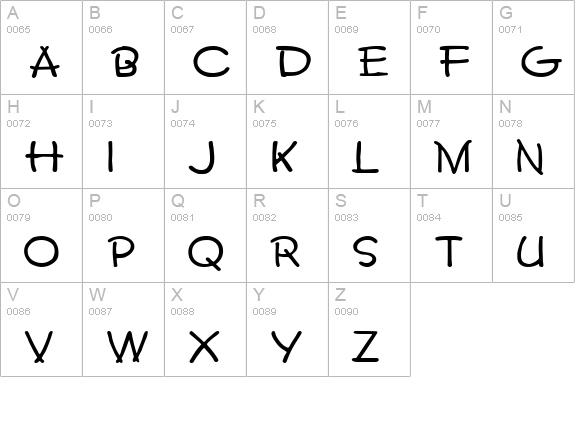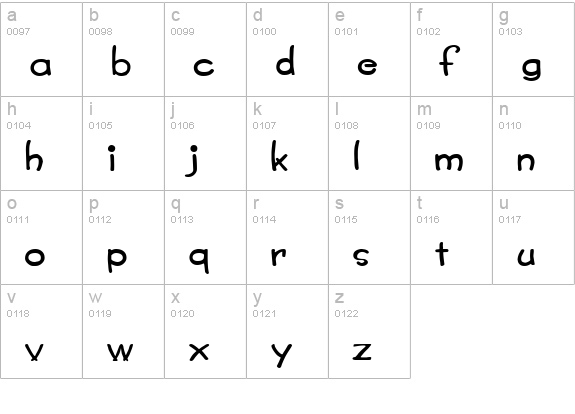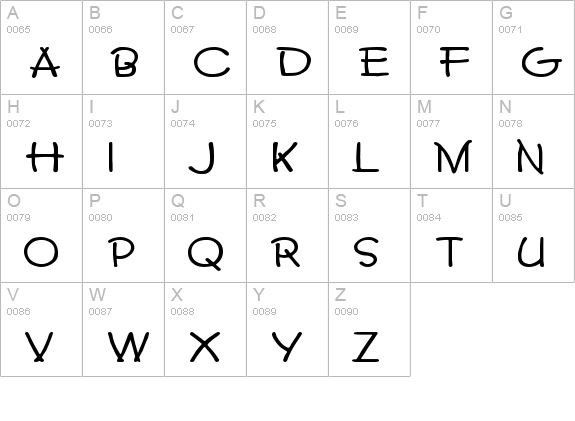
CrayonExtended Normal Font Details
CrayonExtended Normal is the standard, neutral variant in the CrayonExtended typeface family \xE2\x80\x94 well suited to general body text, paragraphs, and standard typographic work.
CrayonExtended Normal font is a playful and whimsical typeface that brings a touch of fun to any project. With its charming hand-drawn appearance, this font is perfect for adding a touch of creativity to designs such as children's books, posters, and invitations. The CrayonExtended Normal font features a unique style that mimics the look of crayon strokes, giving it a delightful and artistic feel. Best of all, CrayonExtended Normal font is completely free to download at FontsMarket.com. This means you can easily add this fun and charming font to your collection without any cost. Whether you're looking to add a touch of creativity to your designs or simply want to experiment with a new typeface, CrayonExtended Normal font is a fantastic choice. Download it today and let your imagination run wild!